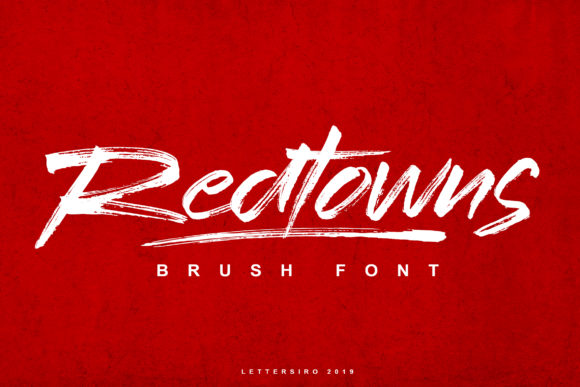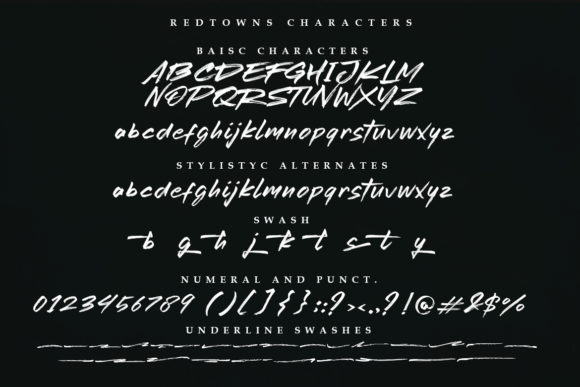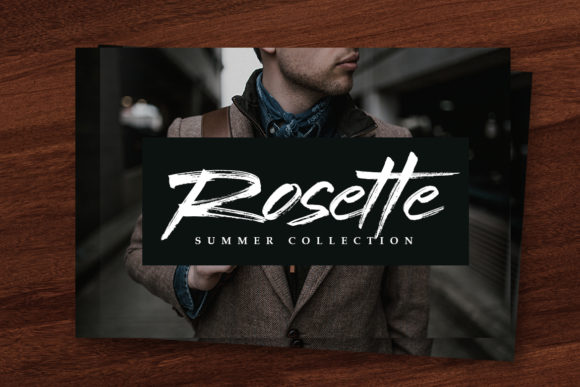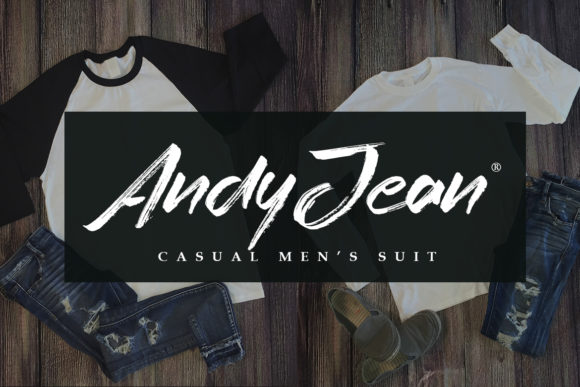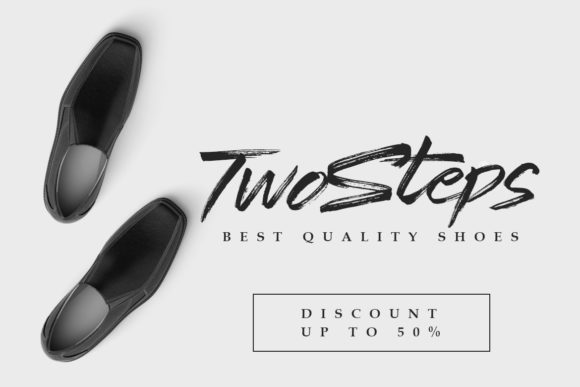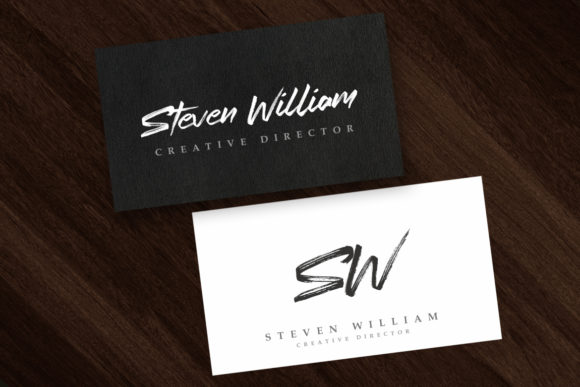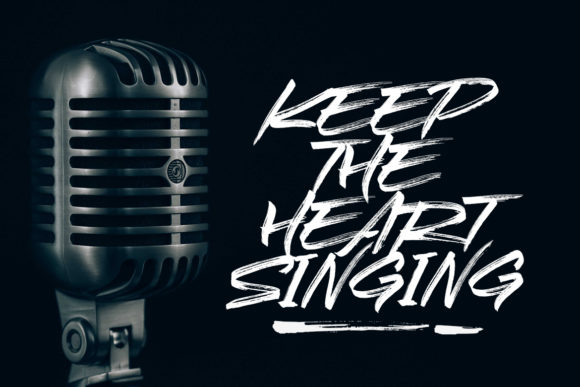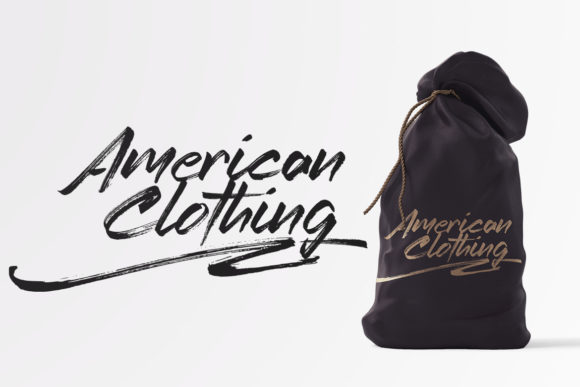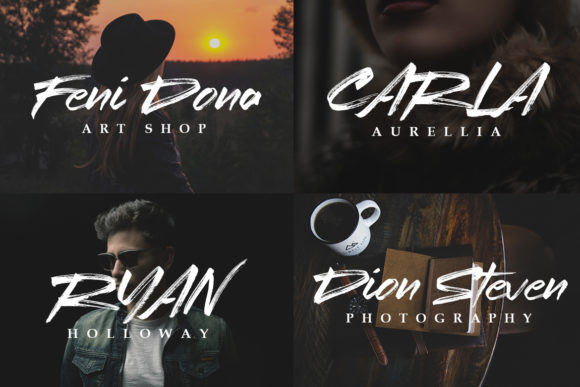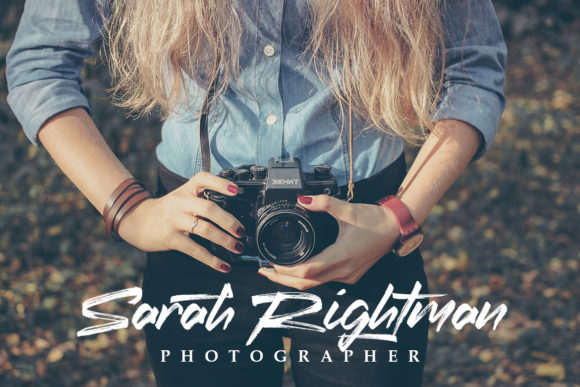
Redtowns Font
About Redtowns Font
The Redtowns is a new font that was made manually using a brush pen and paper. It’s great word modern projects, clothing, signatures, watermakrs, posters, and much more!
It includes a separate underline swashes font that can be paired perfectly.